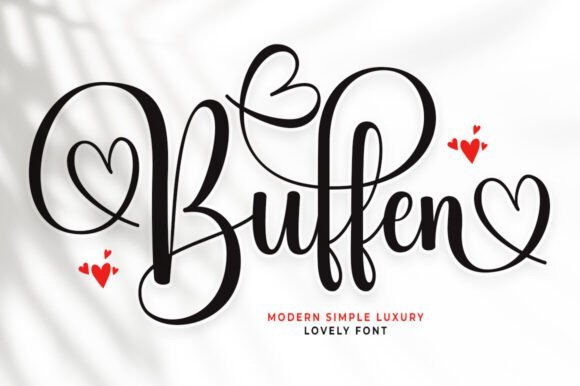
Introduction to Buffen Font
Buffen Script is an elegant handwritten font with a stunning modern touch.
This font is designed with fine details and artistic curves that give a luxurious yet friendly impression Suitable for various design purposes, Buffen Script can be used on wedding invitations, logos, branding, greeting cards, and other creative projects.
Buffen Font offers exceptional quality and versatility, making it a valuable addition to your design toolkit. Whether you’re creating for personal projects or commercial use, Buffen Font delivers professional results.